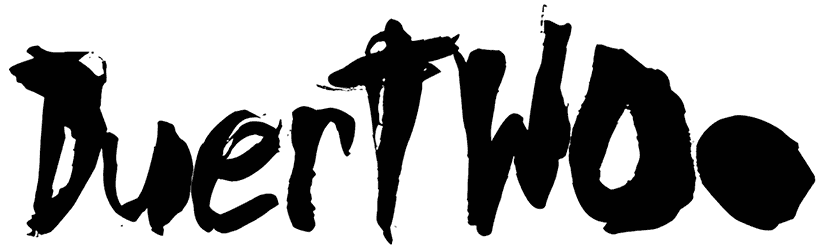
DuerTWOo Font
While attracting the attention of the audience is getting harder every day, a magical horror font such as DuerTWOo can be your superior game-changer. Since it carries a sense of fear, dread, momentum, or jauntiness, it can make your editorial projects look glorious.